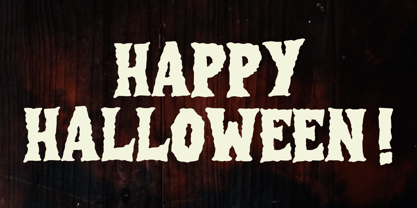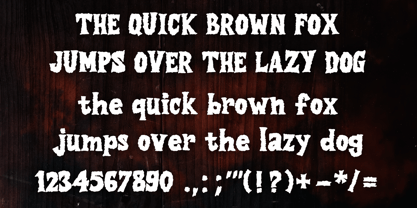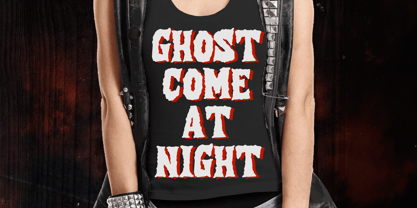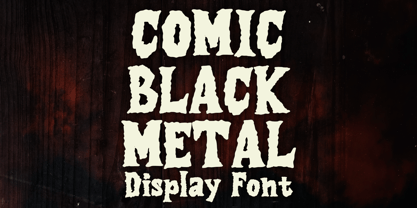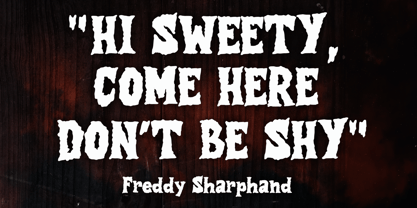
Comic Black Metal
by Mvmet
The Comic Black Metal Font Family was designed by Gabriel Valentinus and published by Mvmet. Comic Black Metal contains 1 styles. More about this family
Welcome to the chilling realm of Comic Black Metal, a fear-inducing horror font that exudes a bone-chilling allure. Infused with the raw, primal energy of iconic horror films, eerie comics, and the pulsating rhythm of Metal music, this font transcends mere lettering—it's a rodeo of terror. Comic Black Metal is the quintessential element for all your sinister and Halloween designs. Imagine it stealing the show on your ghastly graphic tees or giving your spine-tingling novel an elevated design edge. Visualize its eerie elegance adding a spine-chilling touch to your Halloween party aesthetics, lacing greeting cards with a ghoulish lure, or transforming stickers and posters into unsettling yet irresistible pieces of artwork. With Comic Black Metal, every artistic output evolves into an intriguing spectacle, a heartfelt ode to the horror genre. Lose yourself in its haunting embrace and let its terror-touch permeate through all your designs, making it perfect for branding, web design, and editorial projects.
Designers: Gabriel Valentinus
Foundry: Mvmet